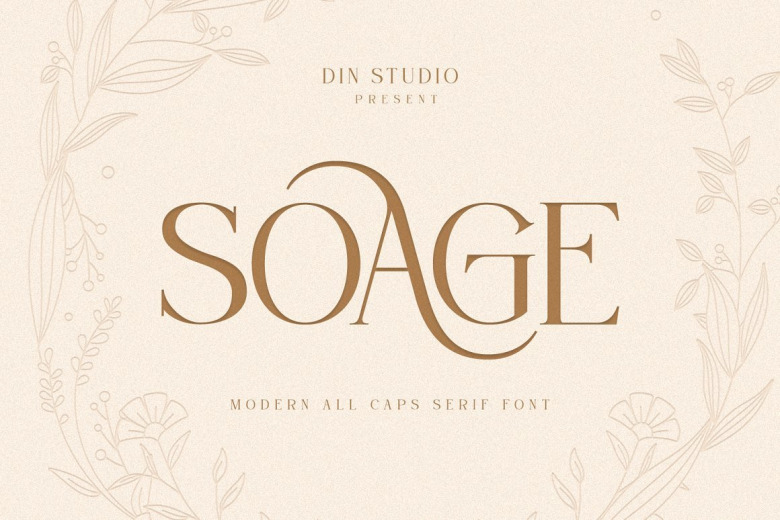
Soage Font
Soage Font is a modern-style serif font with lots of alternatives. Made for any professional project branding. It is the best for branding, printing, wedding and quotes. Every letter has a unique and beautiful touch.